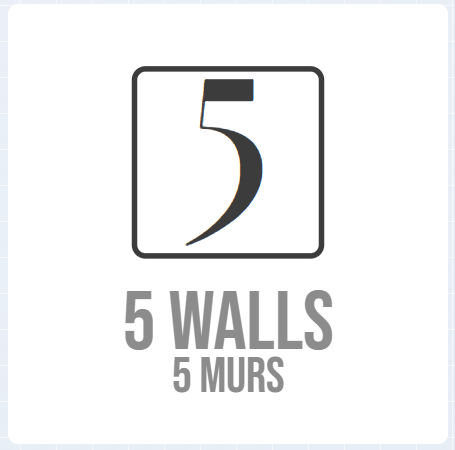
Can you match the number with a typo? (5 Walls)
I guess I just found it! Probably is Italiana font.
I need to identify from which font the number 5 is from. I need to redo my logo a different way and in vector but I can not remember where I had found that typo... (now, I've lost all my digital resources so I have to start from zero) and it looks like no font finder engine detect from a number (?). Does the 5 comes within that outline box or alone? I don't even know. If it comes without, I vaguely recall an elegant cursive which had a stylish 5 similar t this one (probably one I paid for, not free), but again, can't remember which one.